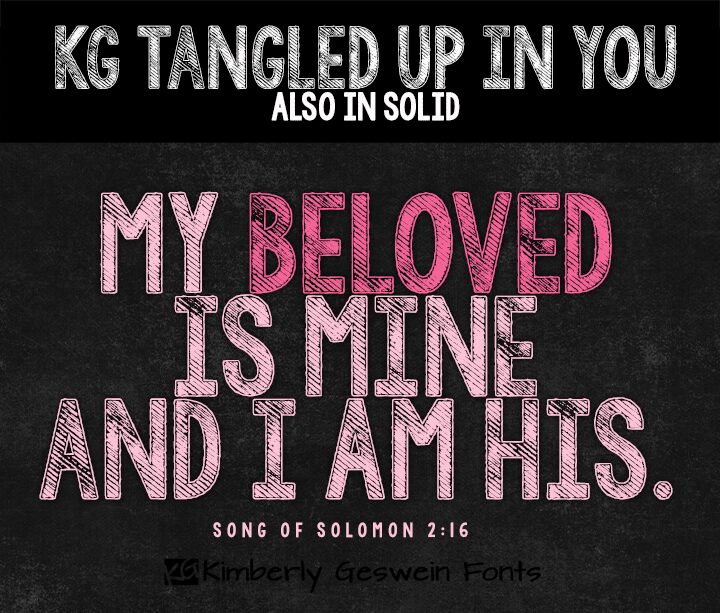
KG Tangled Up in You by Kimberly Geswein is a free eroded display font with tall capitals and a loose, hand-drawn inked finish. Rough double contours and dense diagonal hatching run through the strokes, producing a scratchy surface that feels busy but deliberate.
A concert poster is its clearest home, with album covers, youth-event flyers, and casual apparel offering related settings. It makes titles look drawn directly into the artwork.